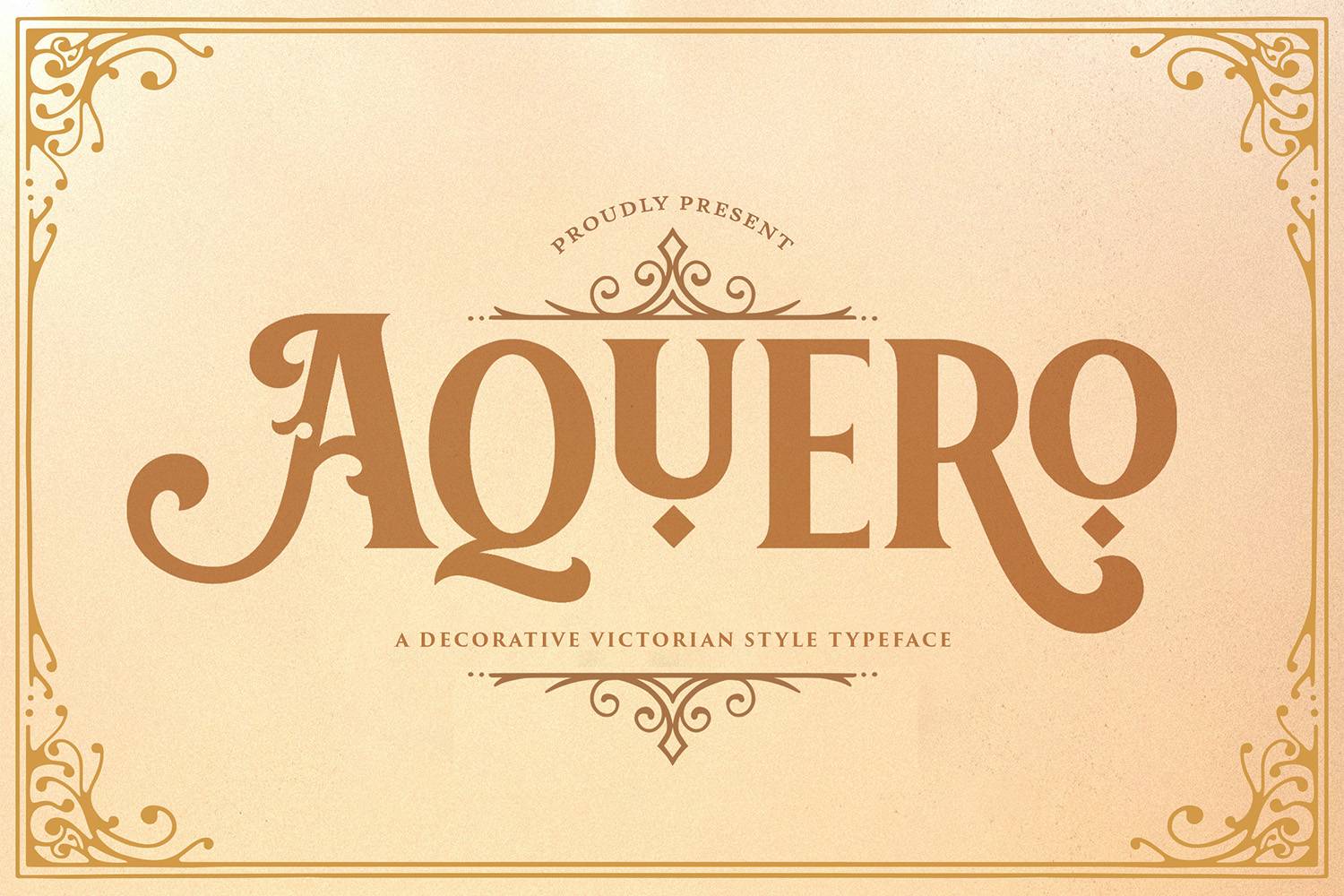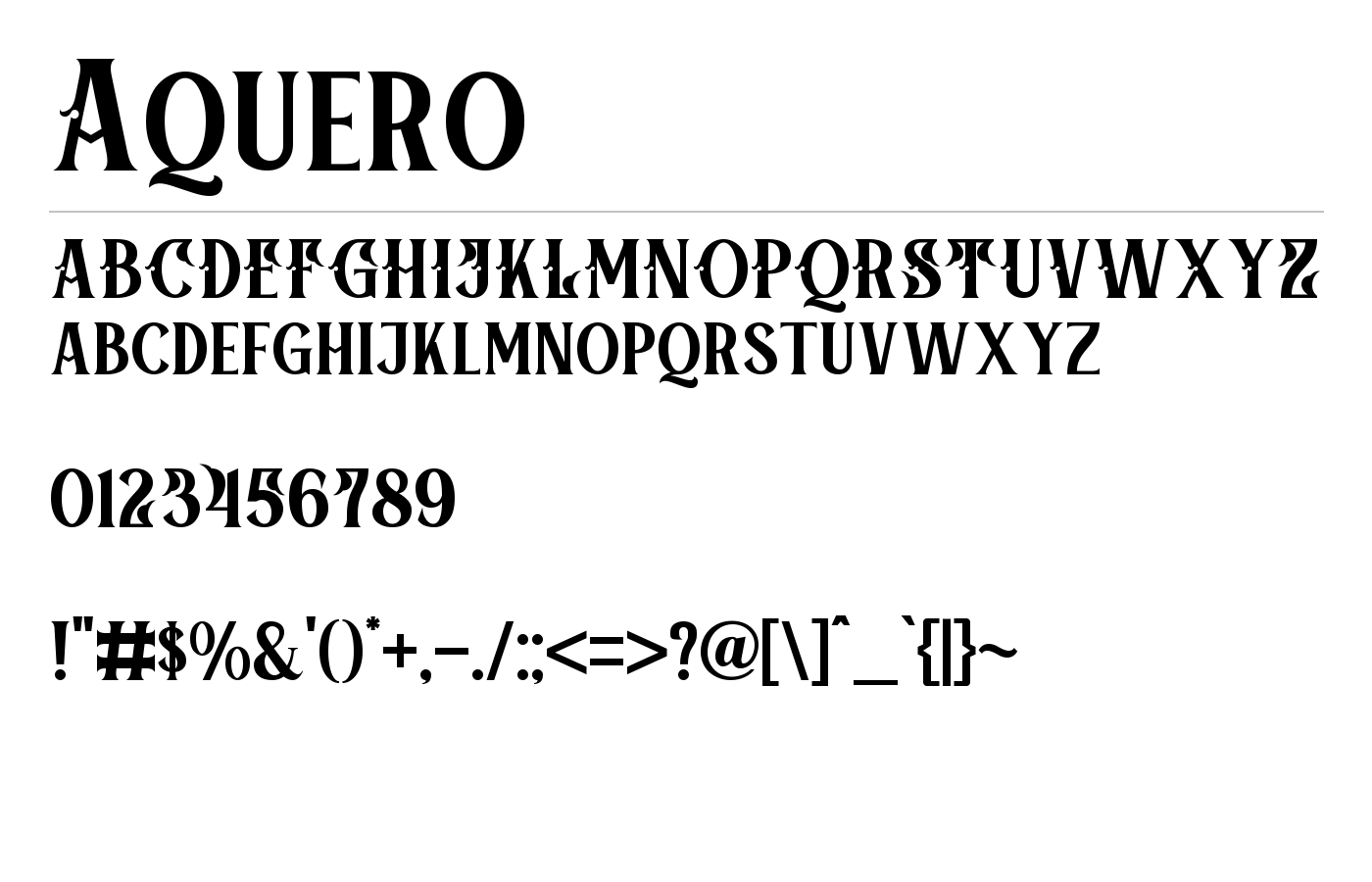
Aquero is a bold serif font with a striking blend of modern and vintage influences, featuring sharp, high-contrast strokes and ornamental details that add a unique, stylish flair. Its tall, condensed letterforms with distinctive serifs and elegant curves make it ideal for luxury branding, headlines, and editorial designs where a sophisticated yet eye-catching appearance is desired. This font works best in settings that require a strong visual identity, such as fashion, packaging, and upscale logo design.
Aquero Font
About Aquero Font
| Font family | Aquero Font |
| Designer | Virgiawan listanto |